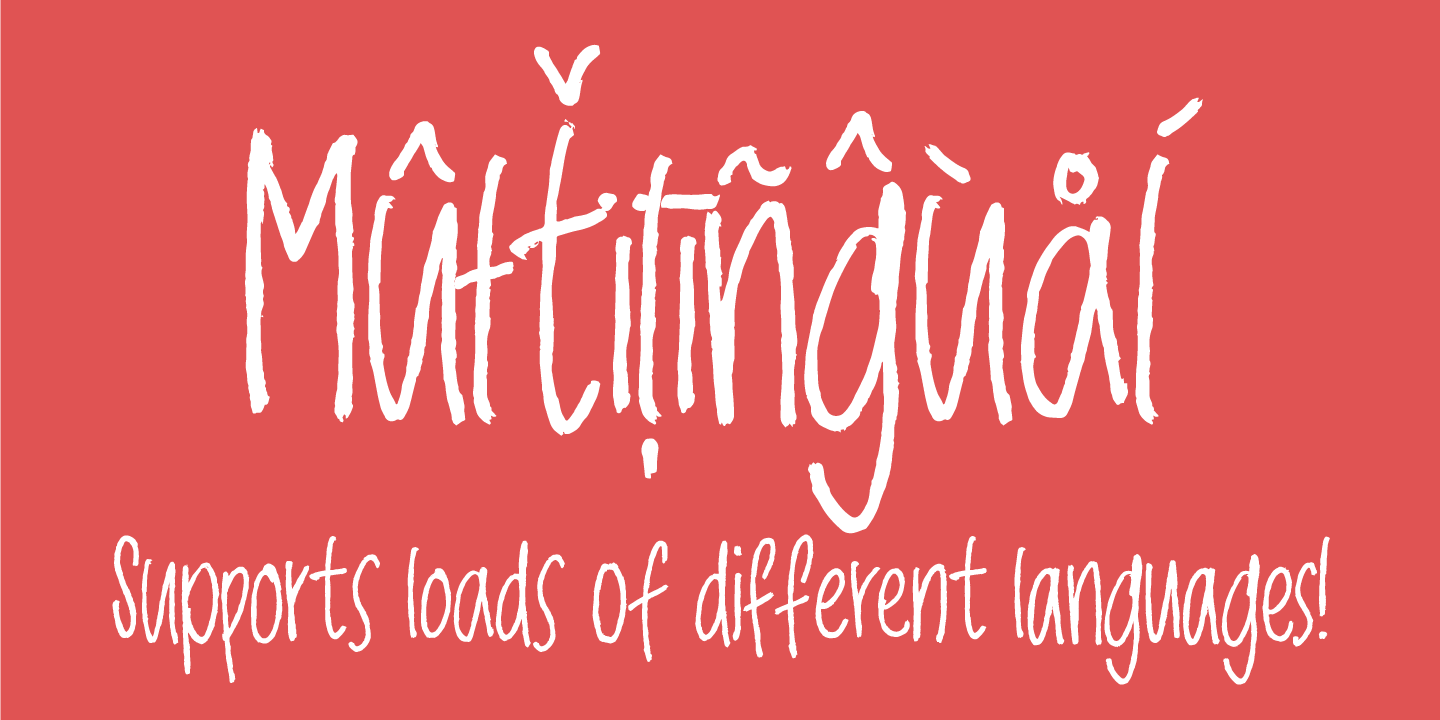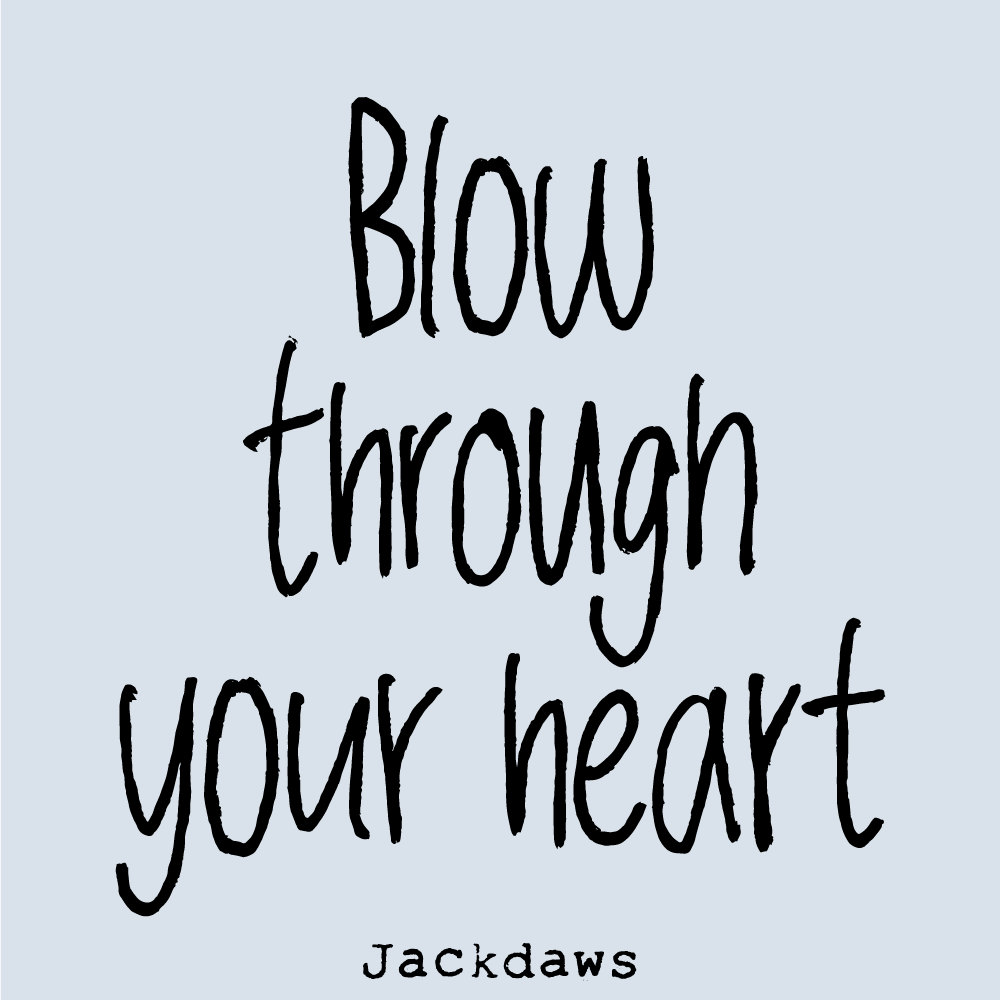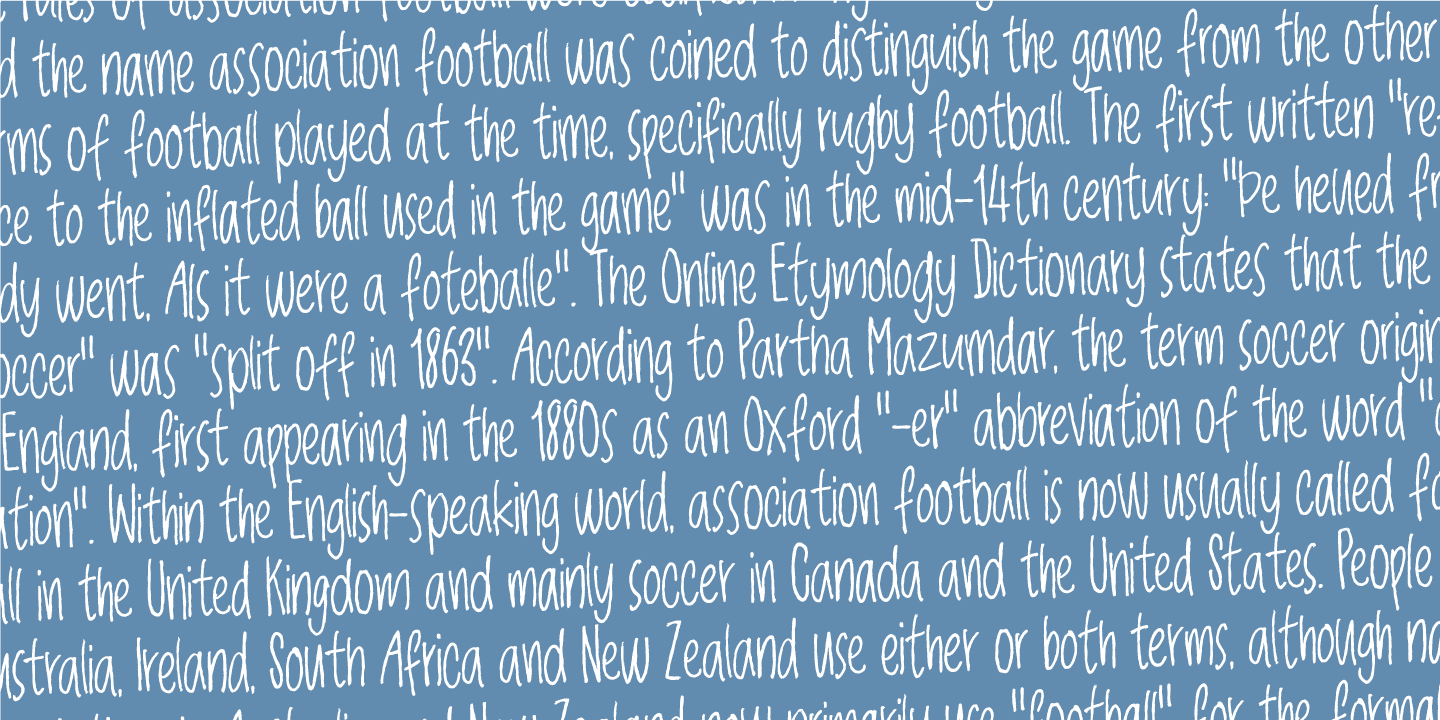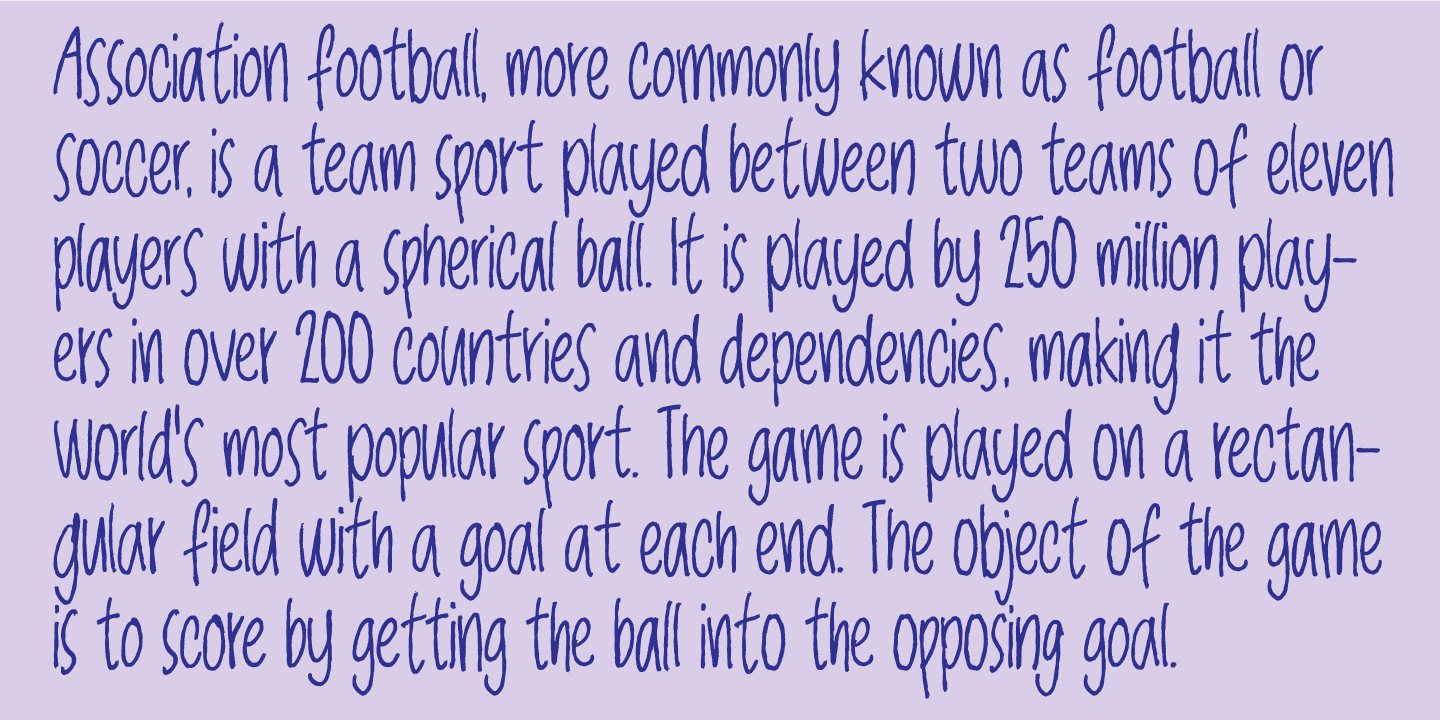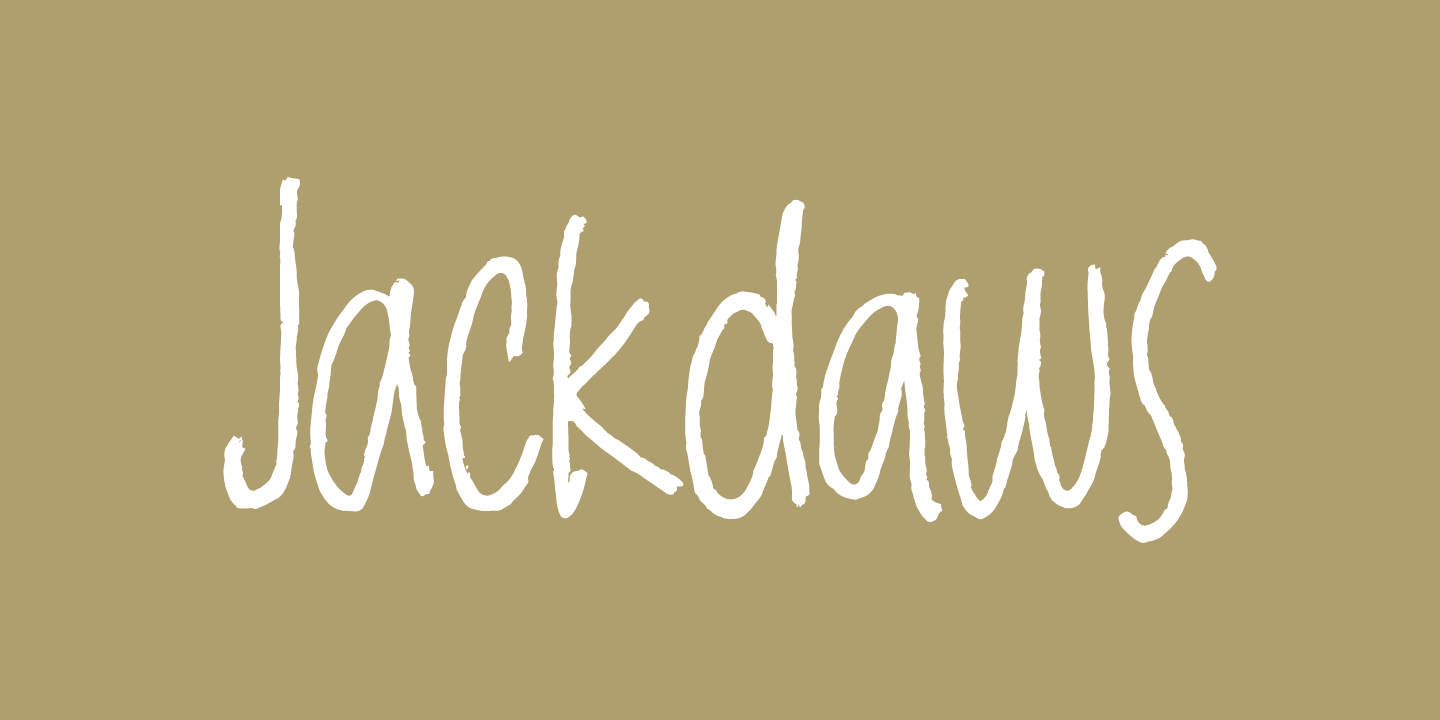
Jackdaws
A rough, yet legible version of my handwriting. Comes with contextual alternates that makes your text look even more cool!
Also with loads of international letters! Viva multilingual support!